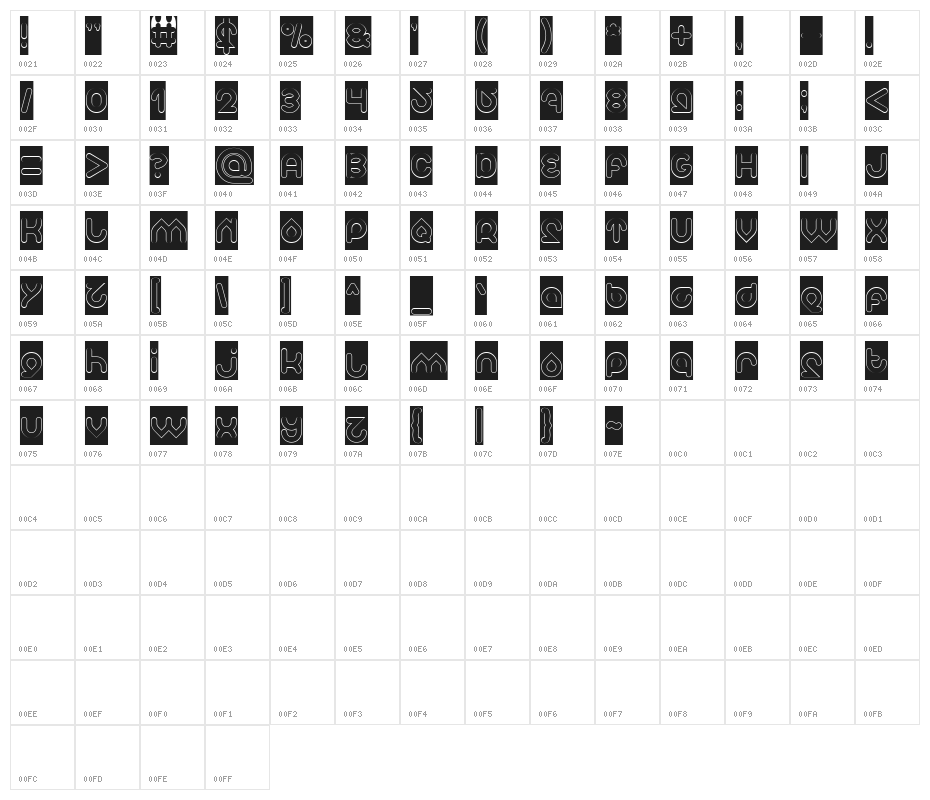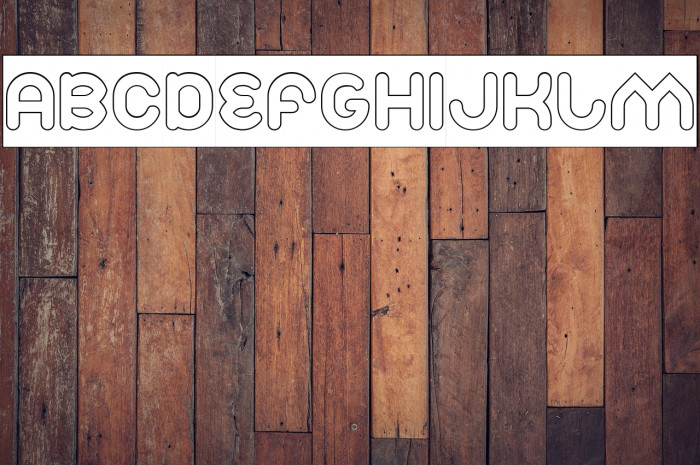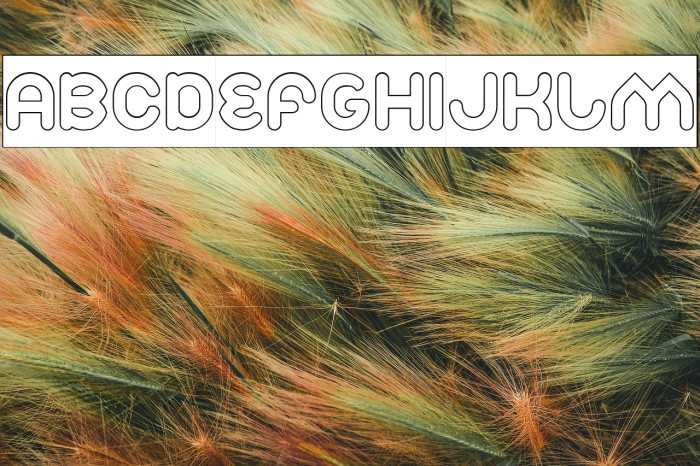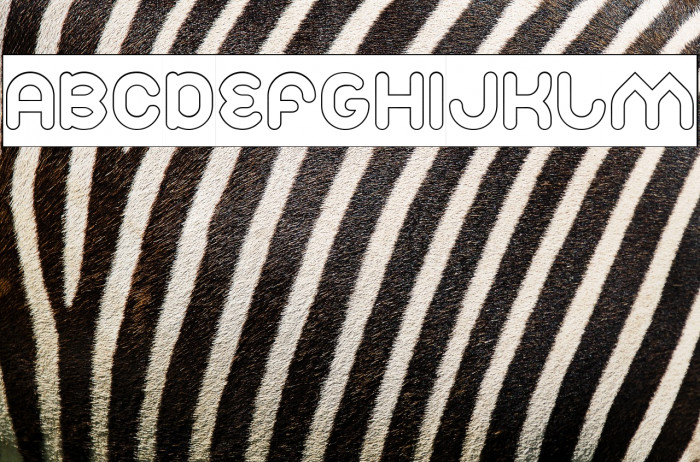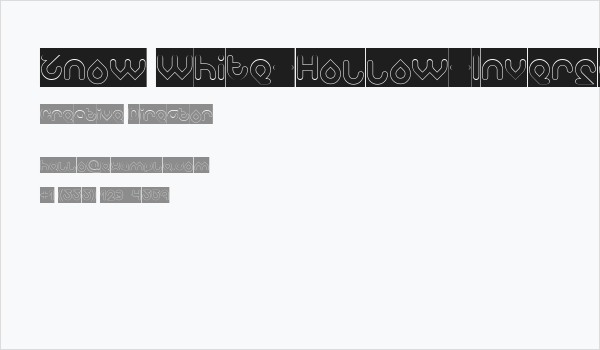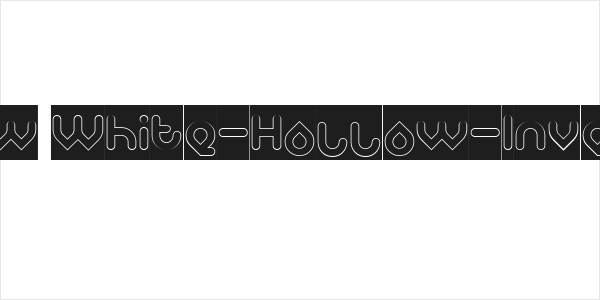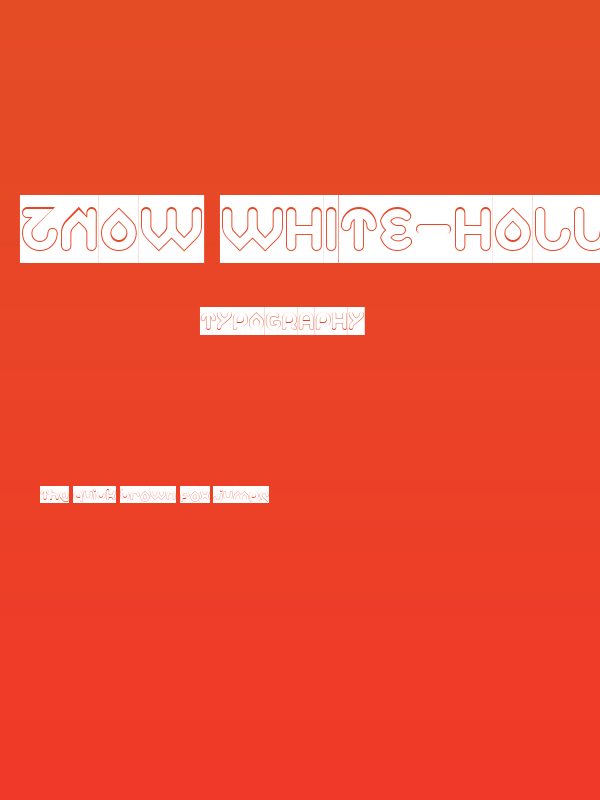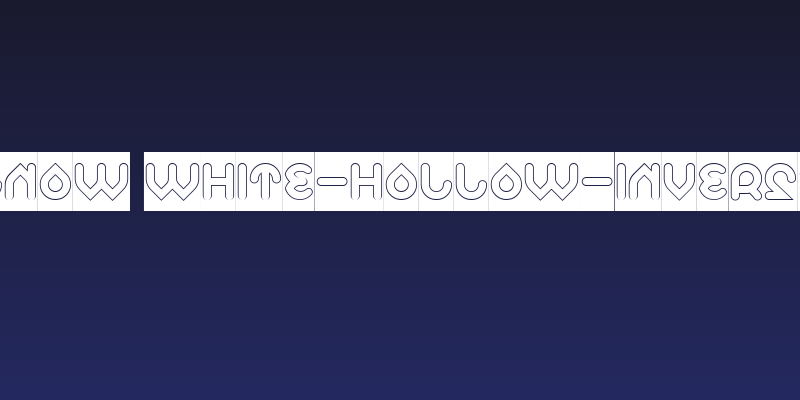
Znow White-Hollow-Inverse Font
Znow White-Hollow-Inverse Description
This font features a unique hollow design with a modern and playful aesthetic. The characters are outlined with a consistent stroke width, creating a striking contrast against the background. The uppercase and lowercase letters maintain a cohesive style, with rounded edges and a geometric influence. The numerals and special characters follow the same design principles, ensuring uniformity across all glyphs. This font's distinct style makes it ideal for creative and eye-catching designs.
| Proposed Projects | Ideal for branding, posters, and digital media where a bold and creative statement is needed. |